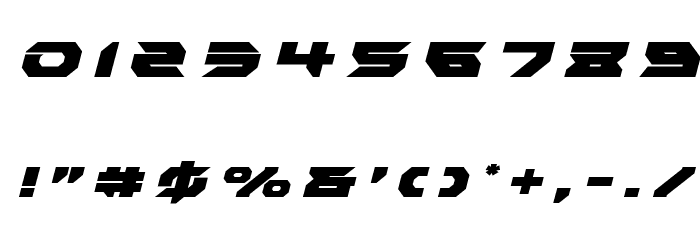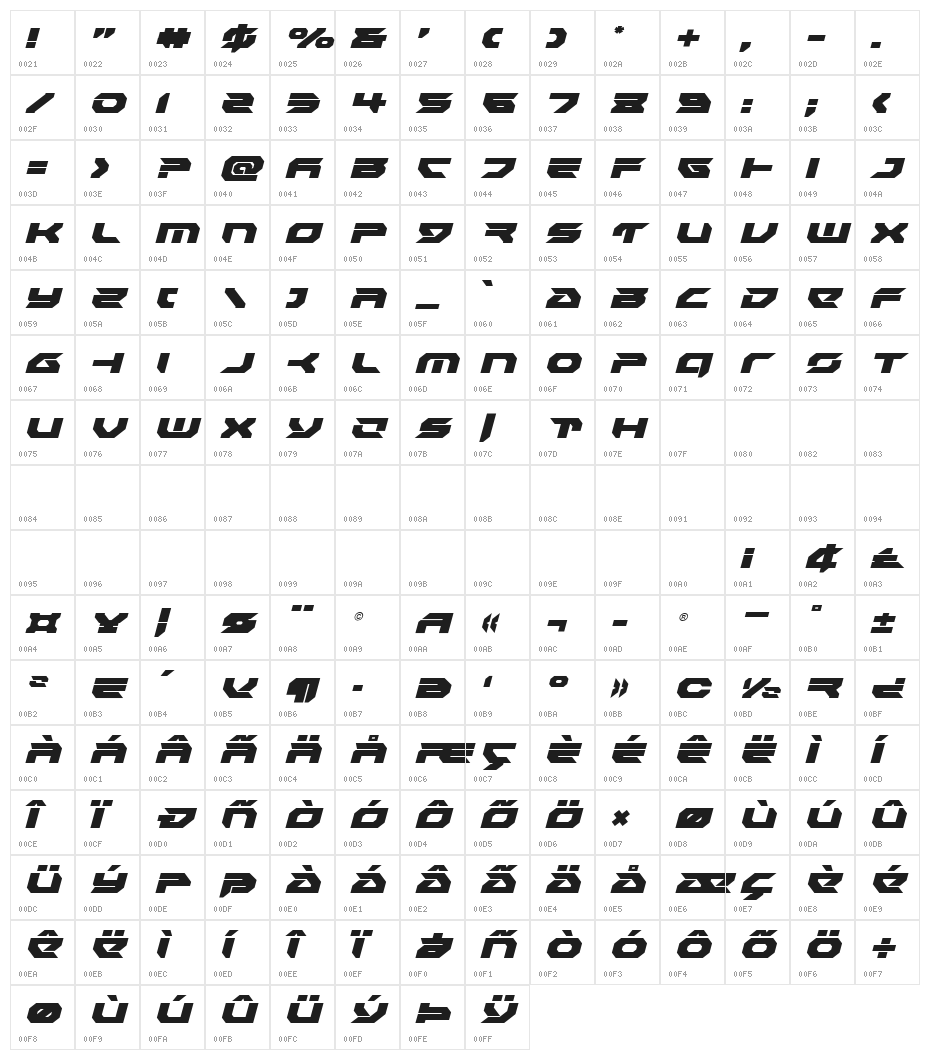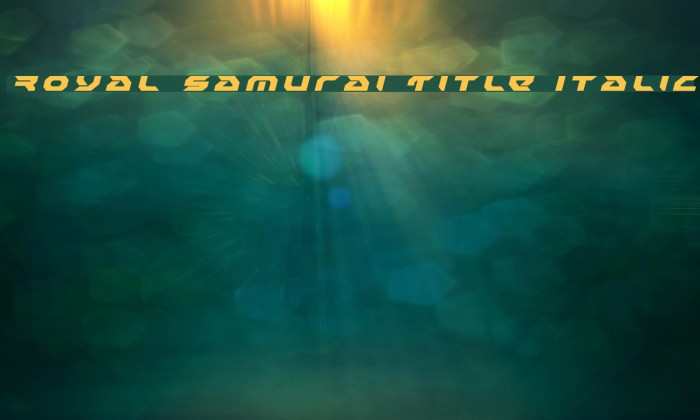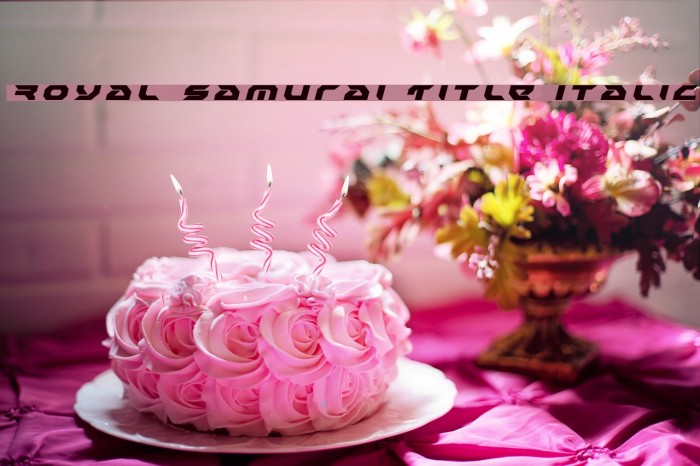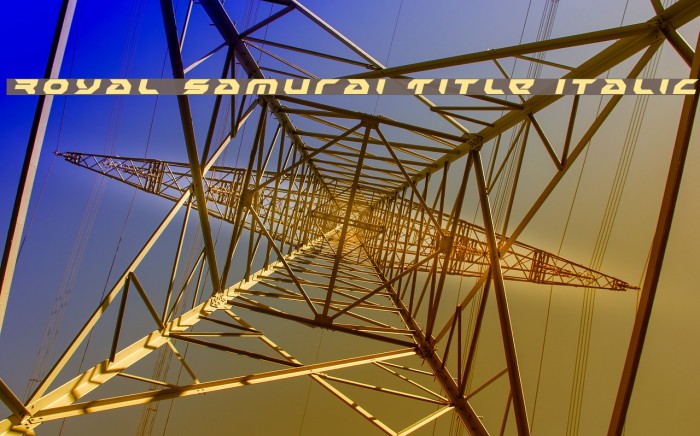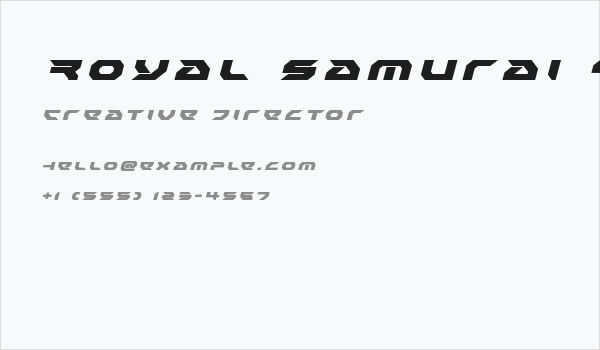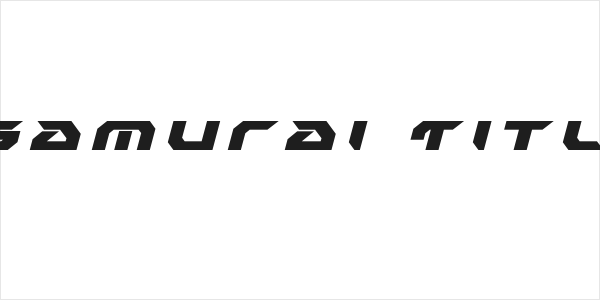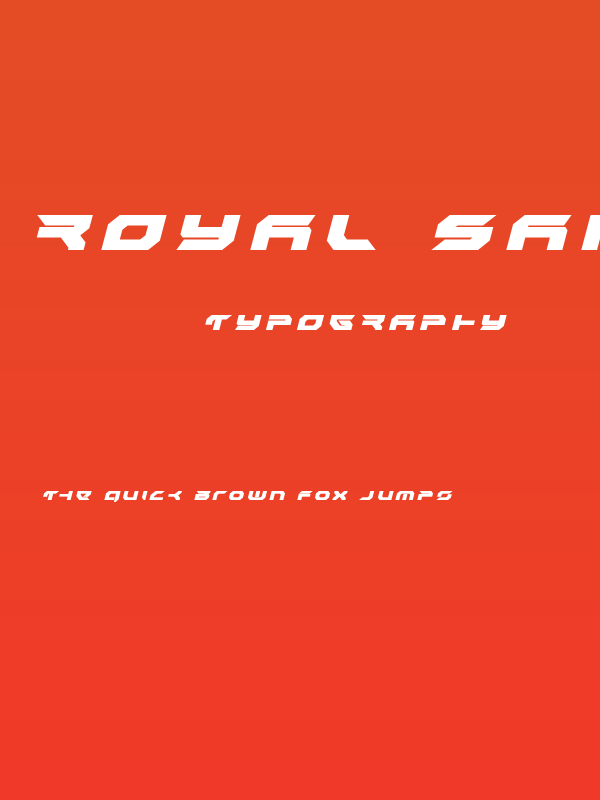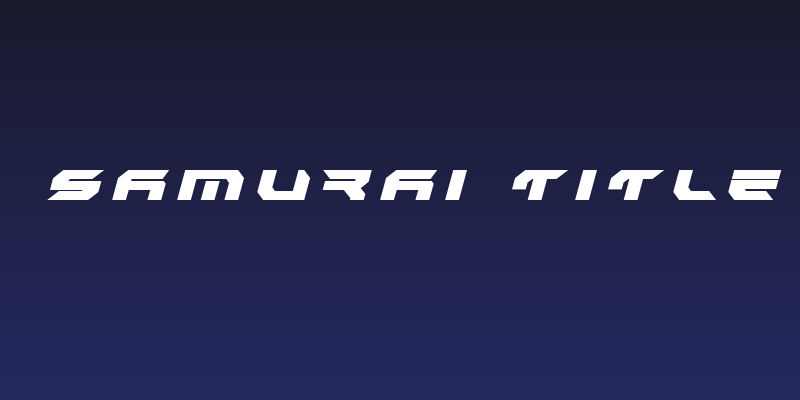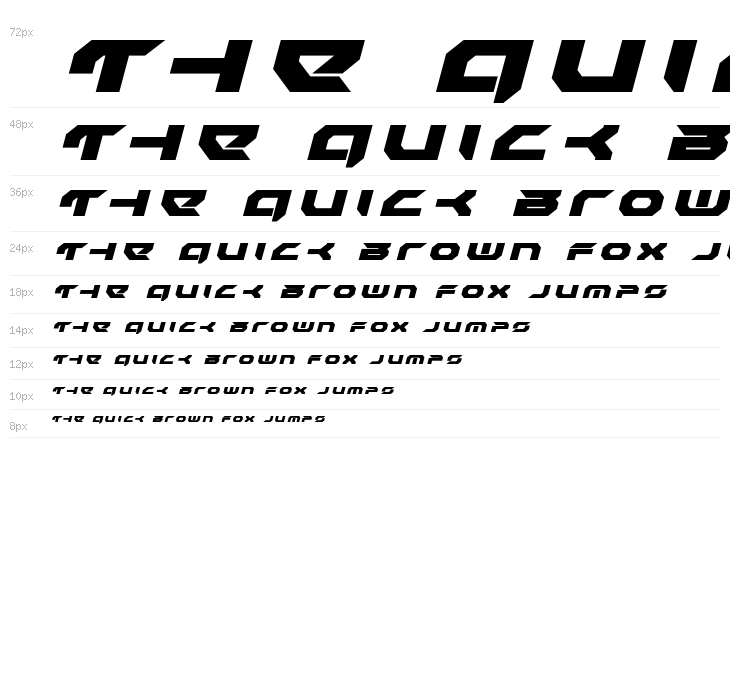
Royal Samurai Title Italic Font
Royal Samurai Title Italic Description
This font features a bold, angular design with a futuristic and dynamic appearance. The characters are sharply cut with distinct geometric shapes, giving them a strong, impactful presence. The italic style adds a sense of motion and speed, enhancing its modern appeal. The uppercase and lowercase letters maintain a consistent style, with the lowercase being slightly more compact. Numbers and special characters follow the same angular and bold design, ensuring uniformity across all glyphs. The font's unique style makes it stand out, suitable for projects that require a bold and modern aesthetic.
Proposed ProjectsIdeal for sci-fi themed projects, video game titles, movie posters, and branding that requires a modern and bold look.